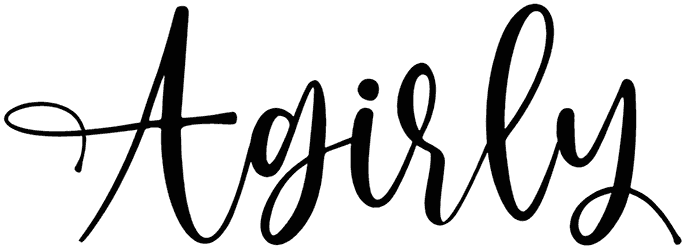
Lemonade Font
If you crave to fill the gaps between your movie posters, stickers, flyers, or brochures and the audience’s expectations, you must select a wonderful script font the same as Lemonade. Its rounded characters can make your graphic content look more interesting to the customers by instilling a sense of personalization, dreaminess, or captivation.
Designed by: Gunawanletter